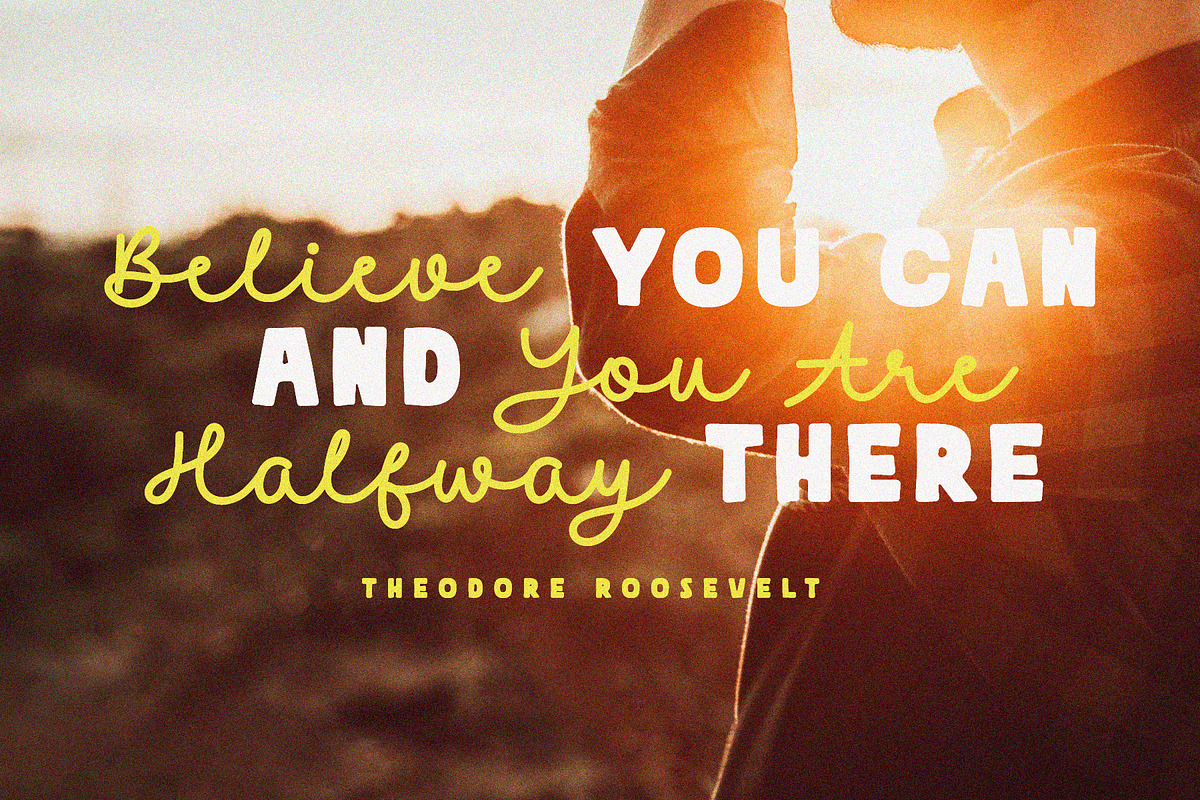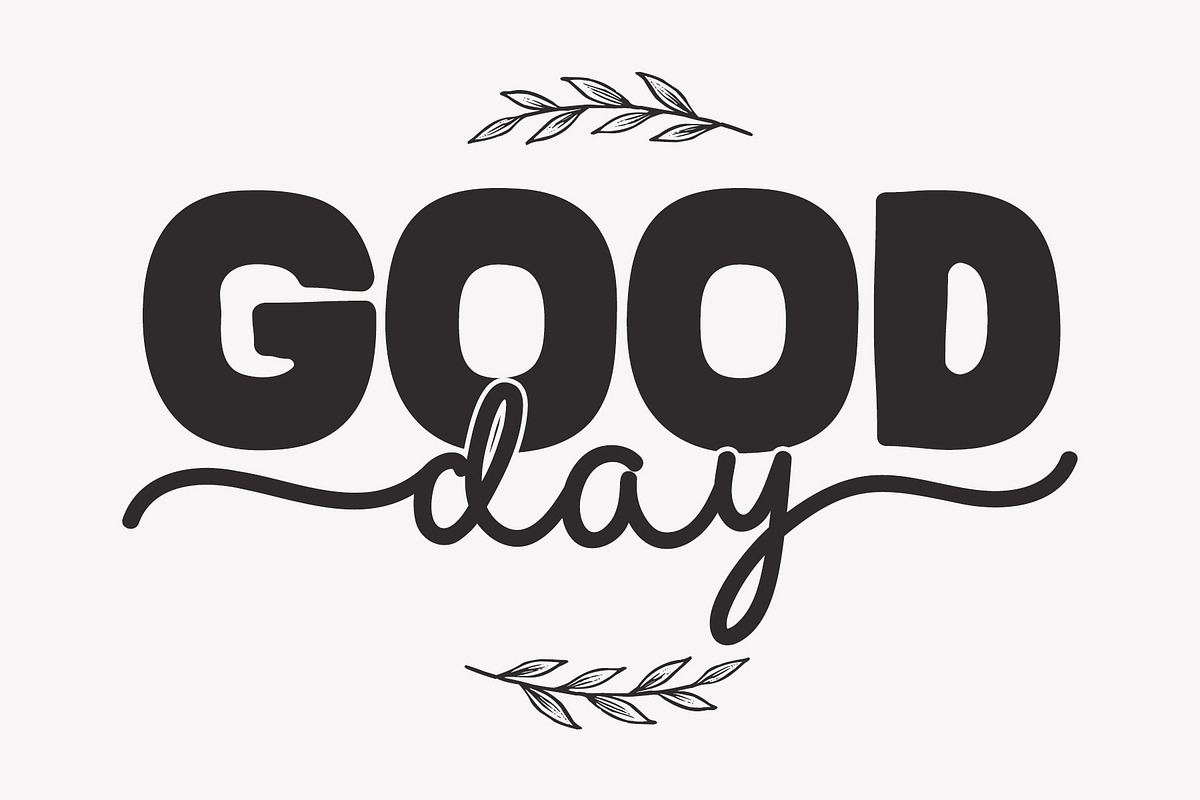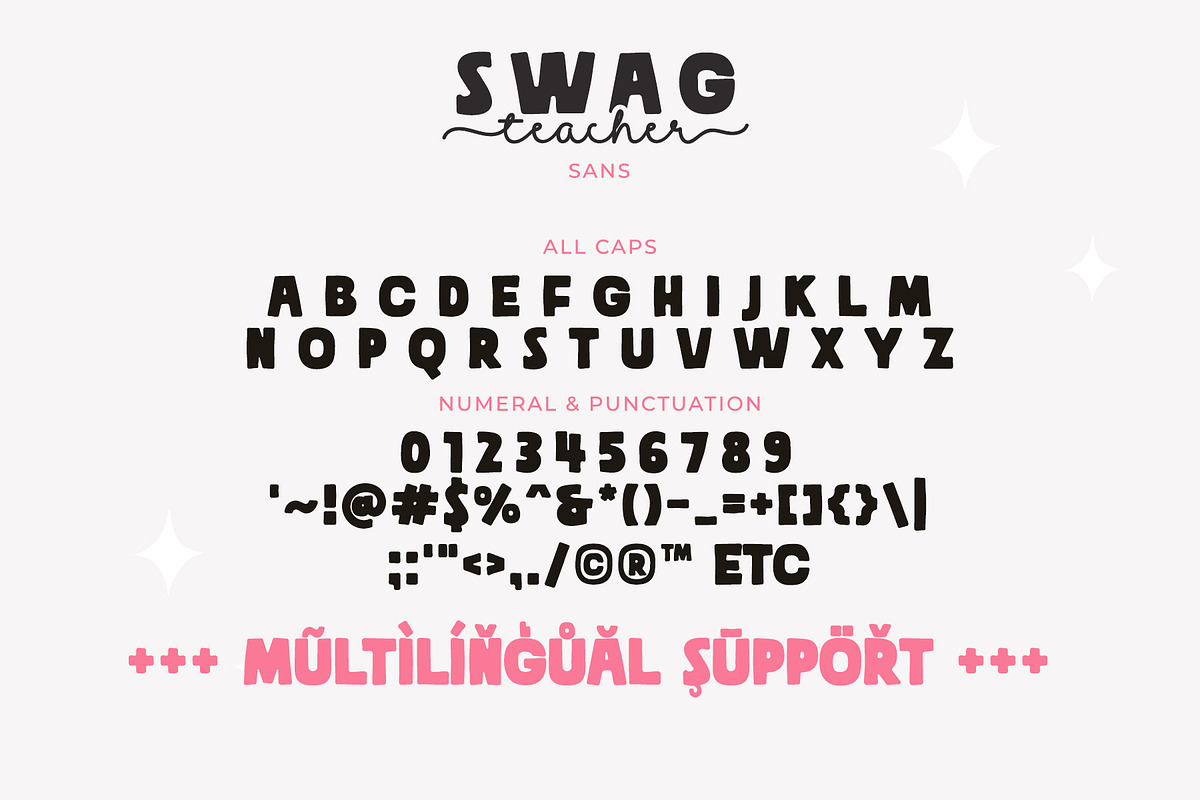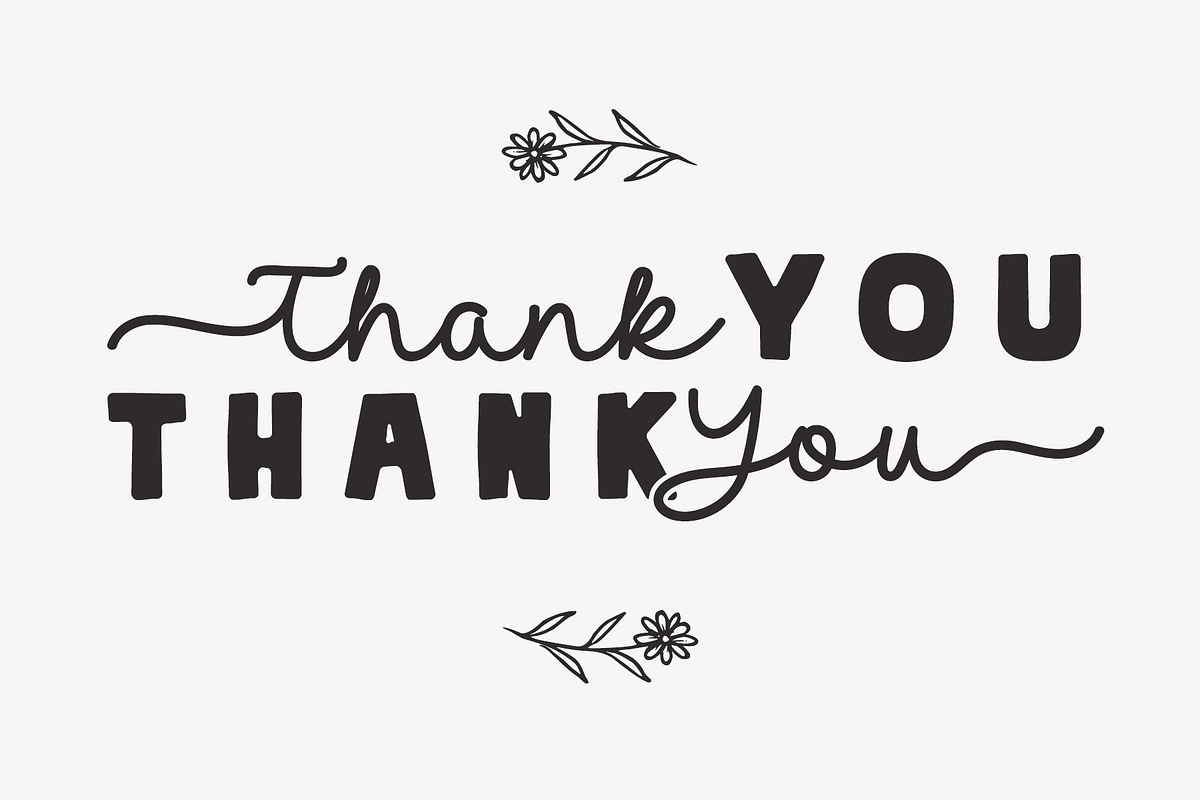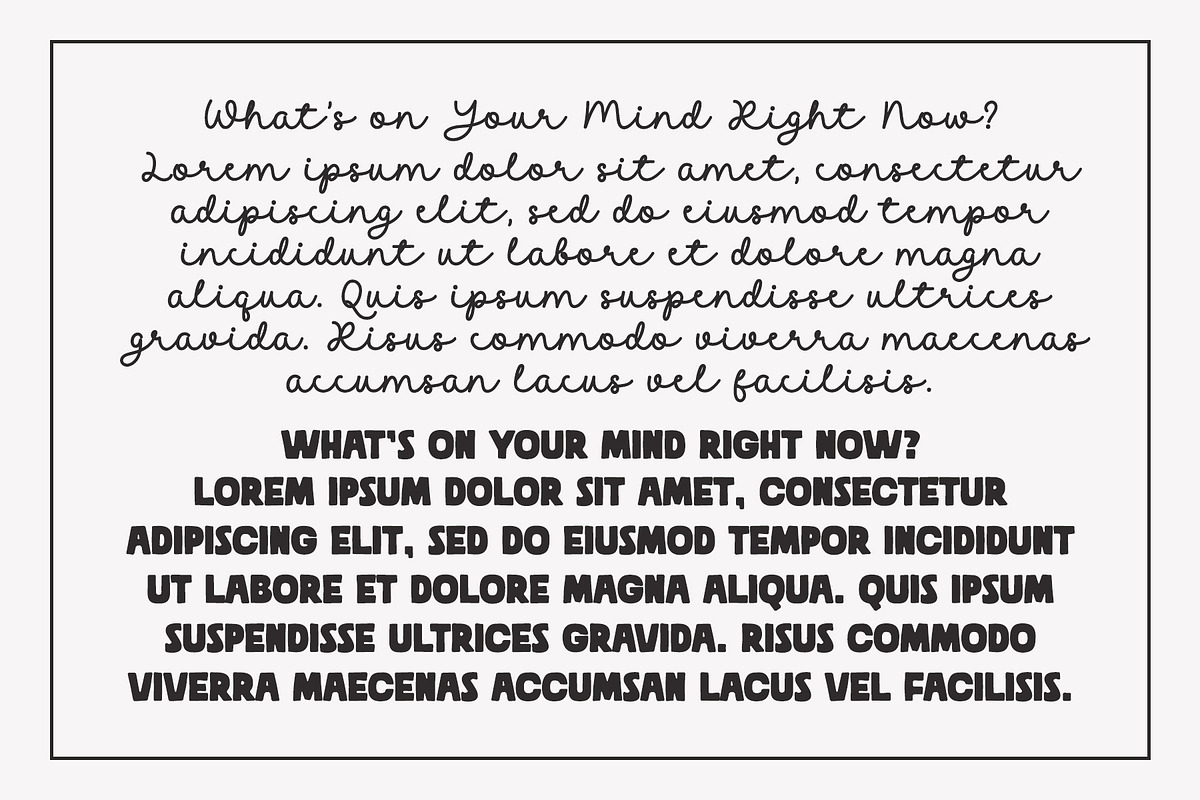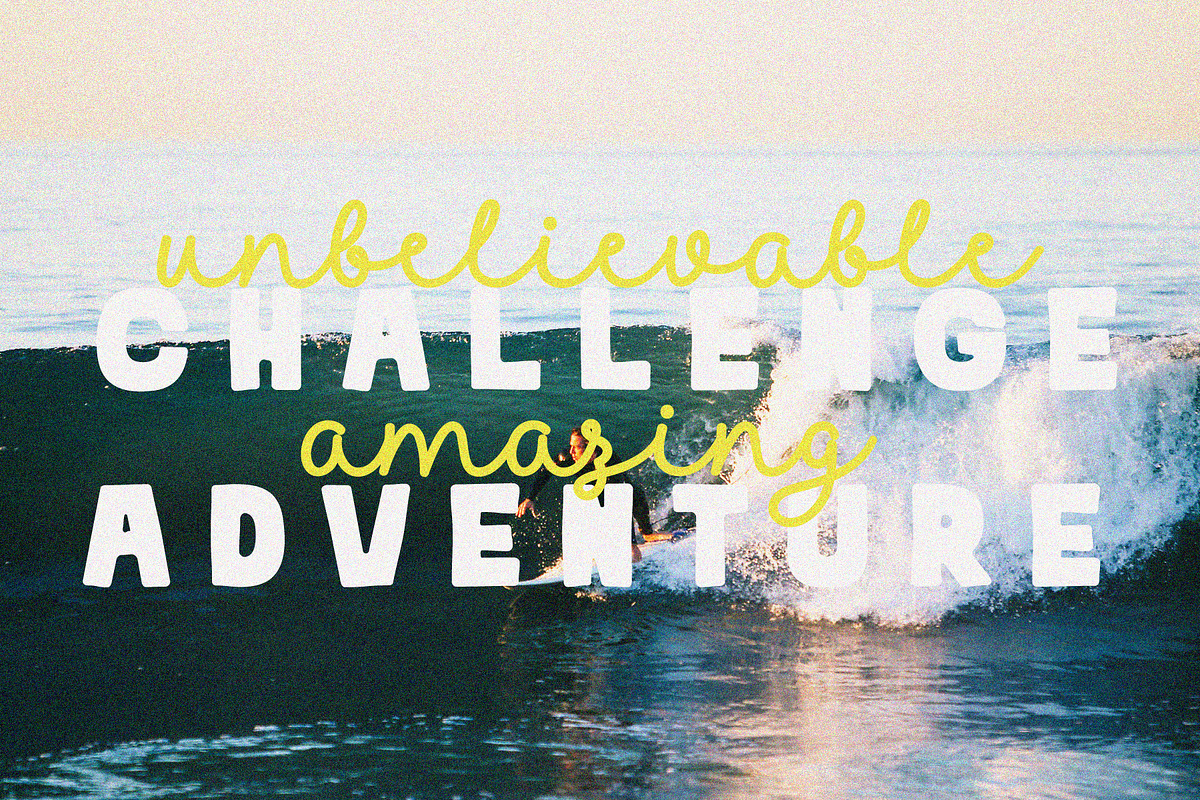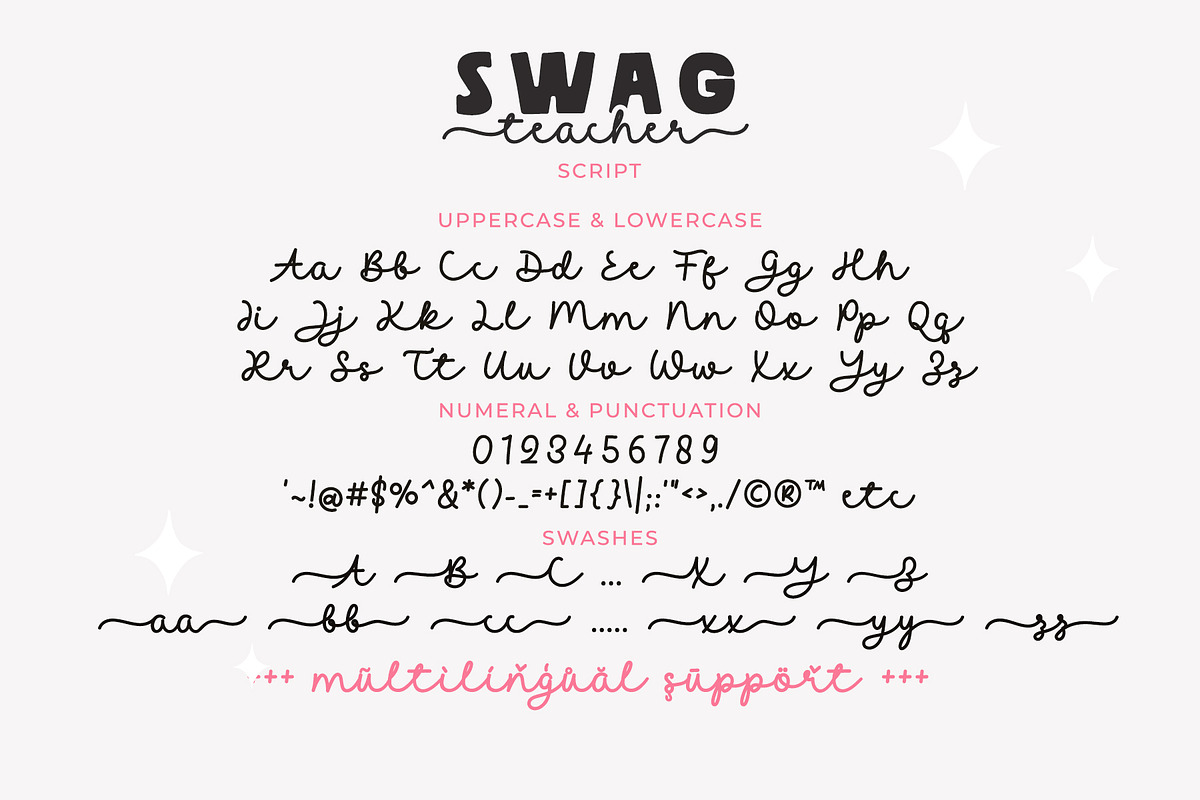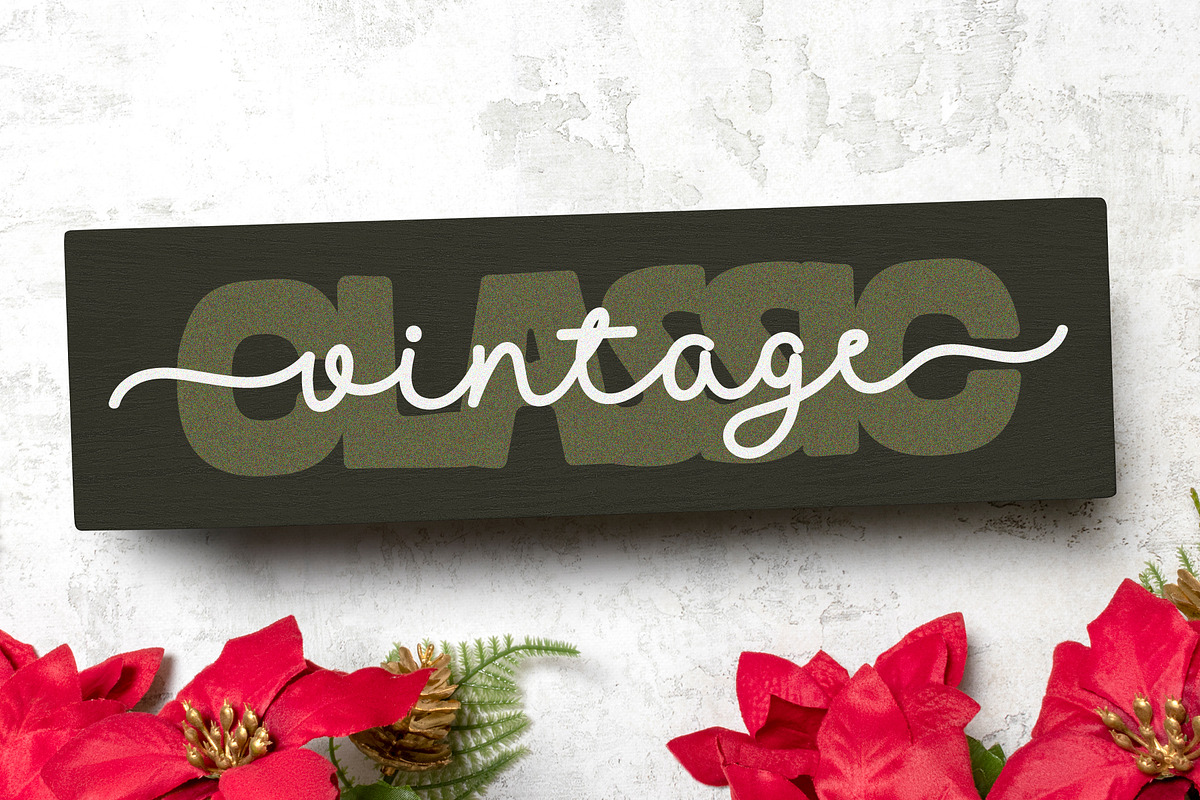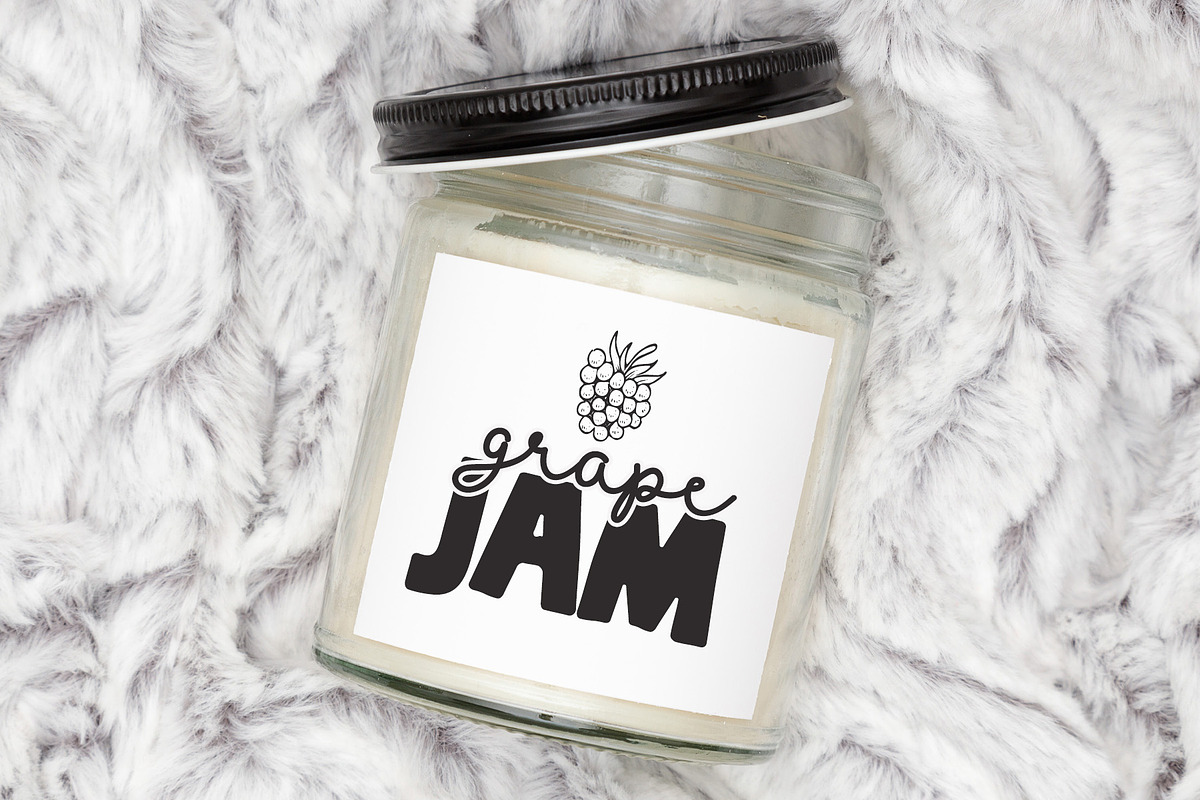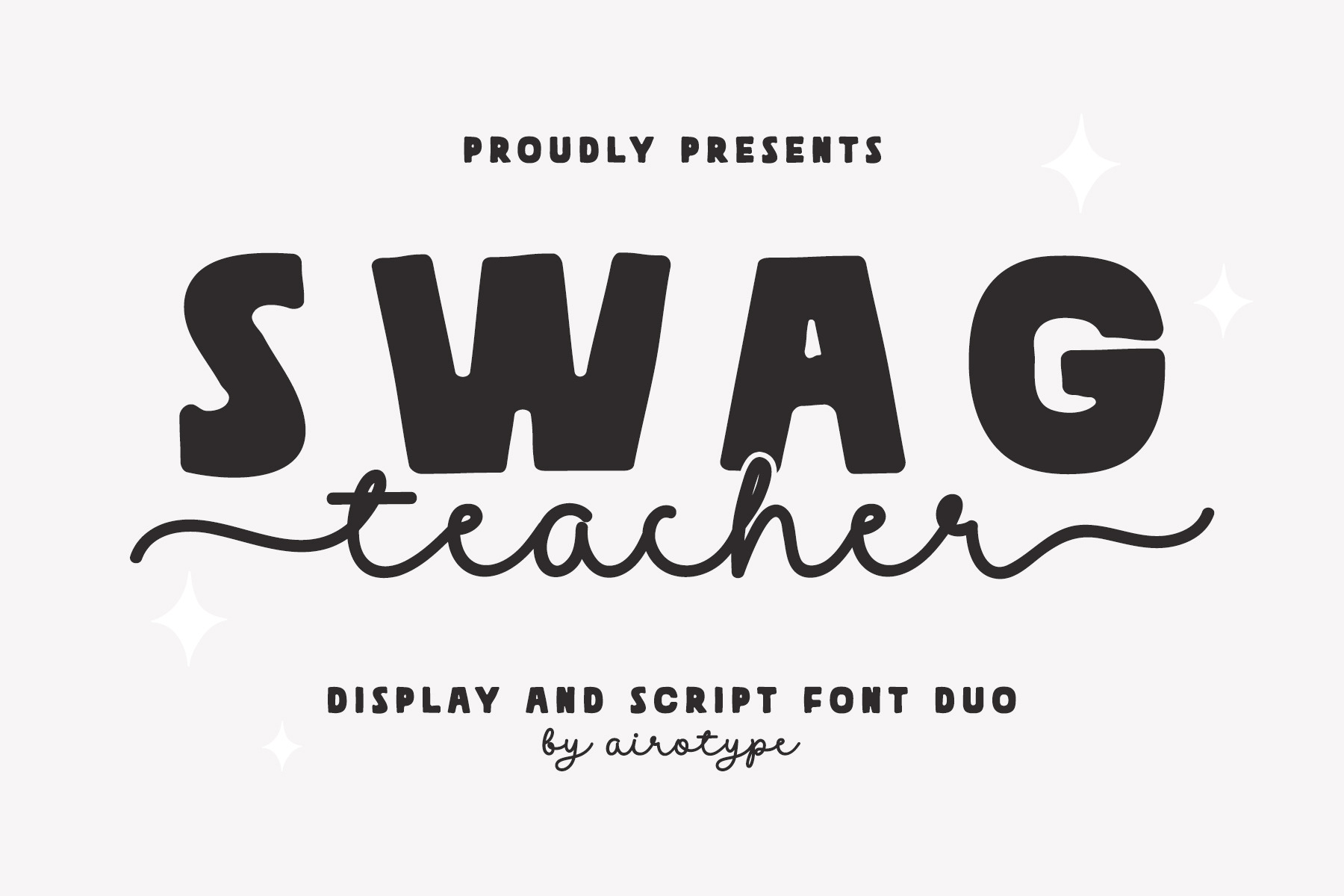
Swag Teacher | Fun Font Duo
Swag Teacher is cool and charming font duo, combining imperfect all caps display font and monoline handwritten font with swash.
This font duo creates delightful and festive vibes into the design, which can be used as a pair or separately.
Swag Teacher is perfect font for tons of design with fancy and modern fun theme, such as t-shirt, birthday, logo, display, poster, crafting, sticker, keychain, tumbler, sublimation, and many more.
Swag Teacher Sans and Swag Teacher Script (with tail swash)
Numeral and Punctuation
Most Multilingual Accent